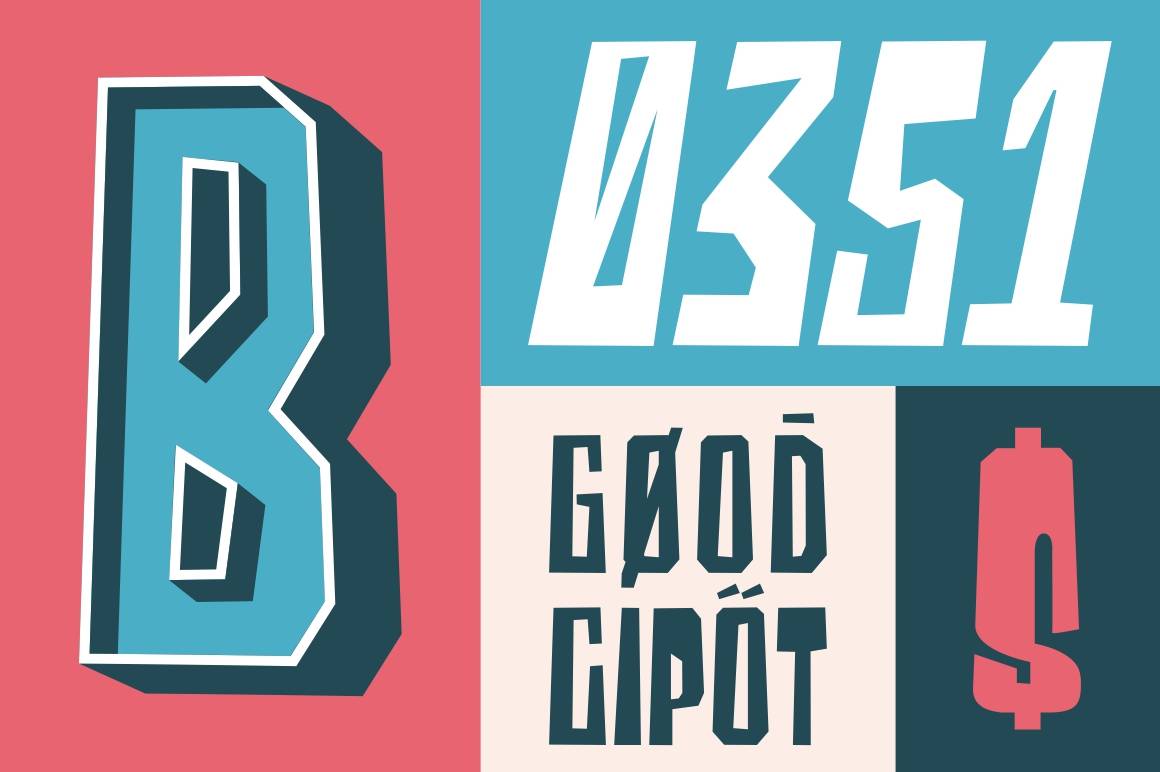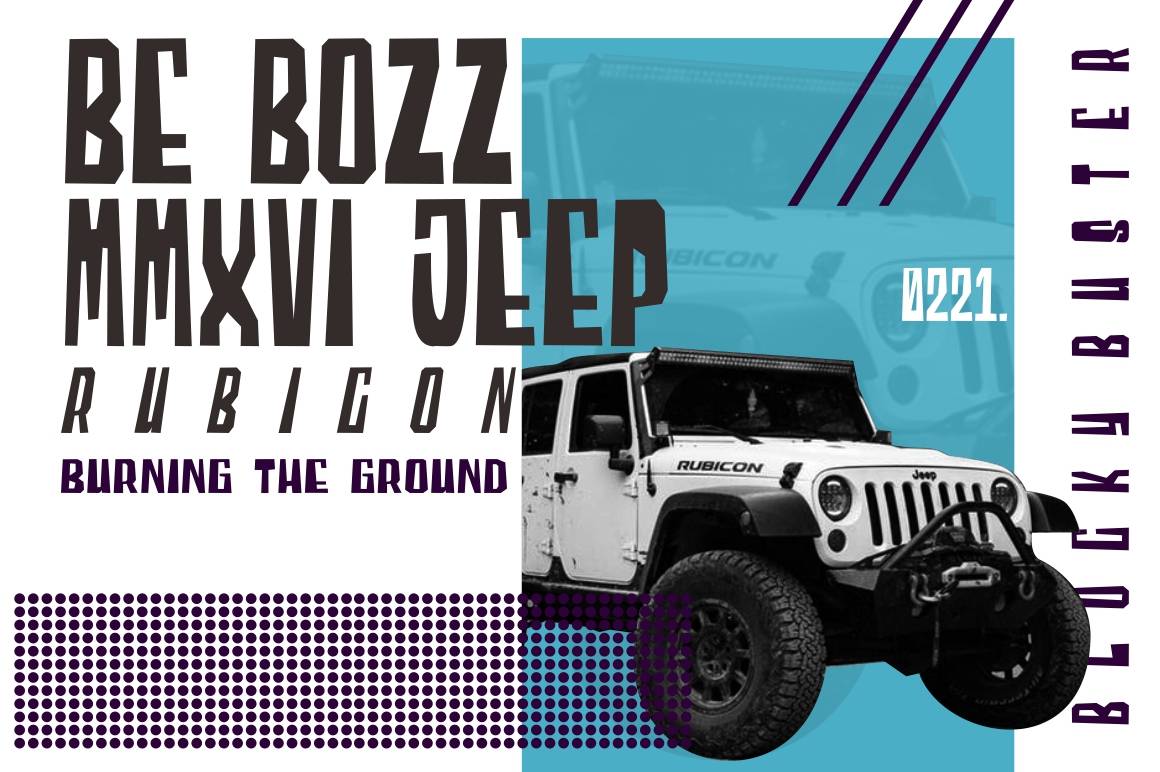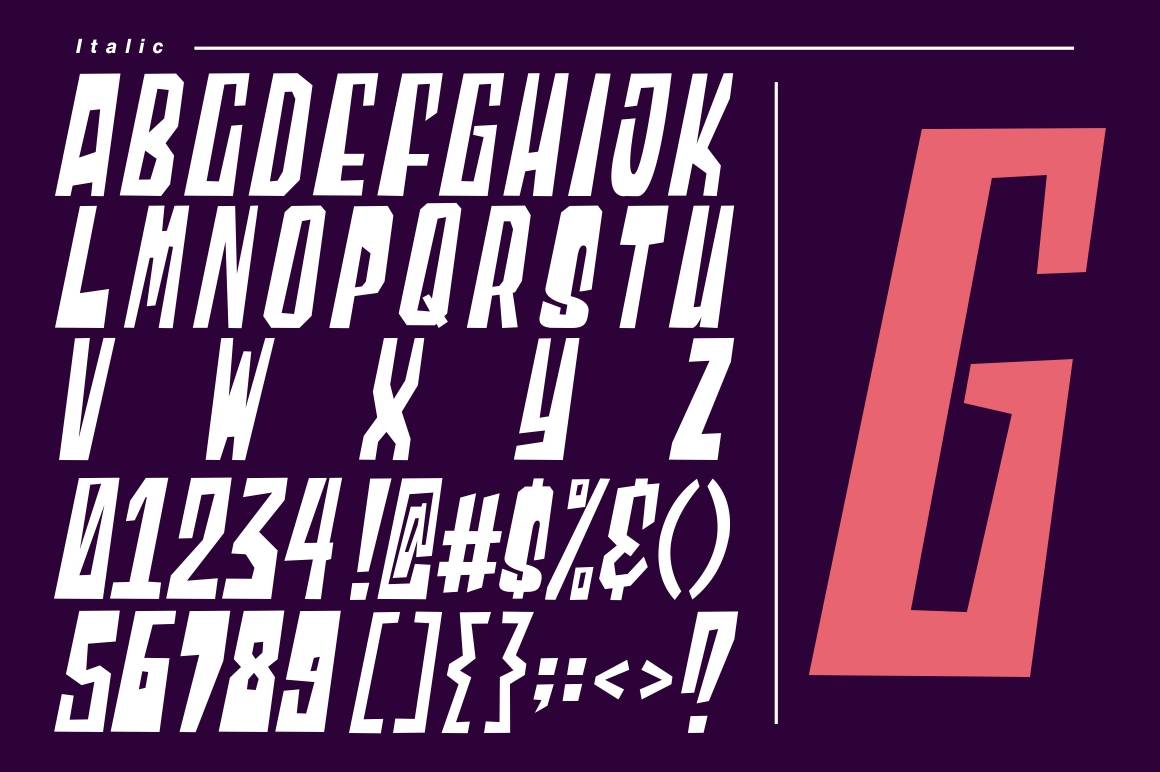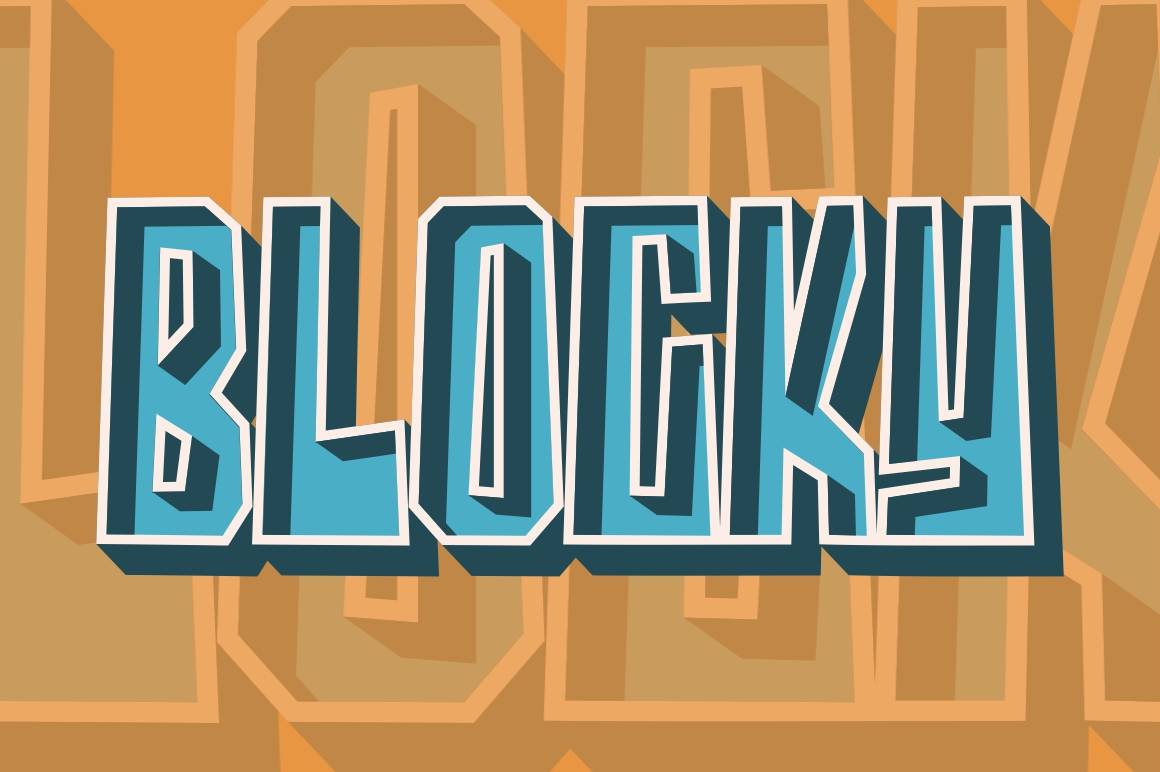
Blocky Font is a bold, condensed sans serif with a playful, hand-crafted feel characterized by irregular, sharp-edged letterforms that create a dynamic, energetic look. Its strong vertical stress, high contrast between thick and thin strokes, and quirky shapes make it ideal for eye-catching headlines, posters, and branding that seeks to convey creativity and boldness. This font works especially well when a modern, edgy, and expressive style is desired.
Blocky Font
About Blocky Font
| Font family | Blocky Font |